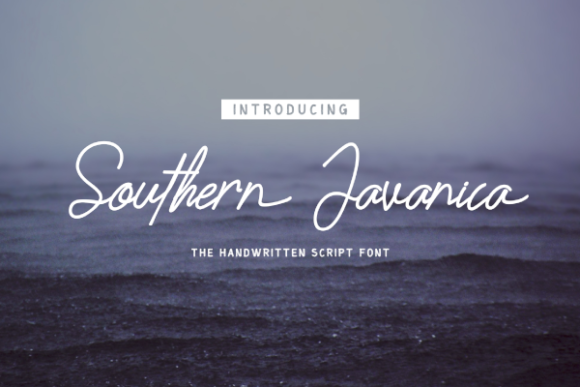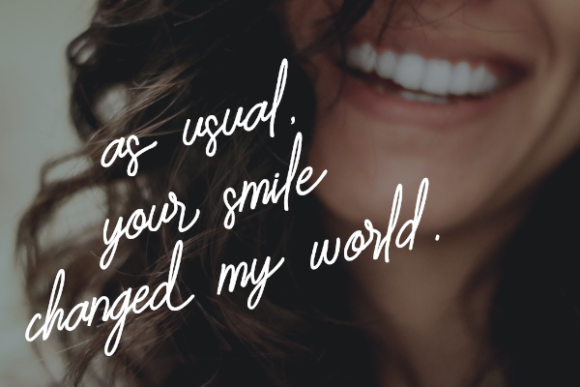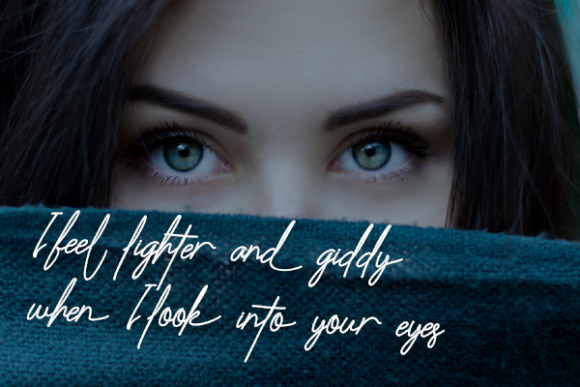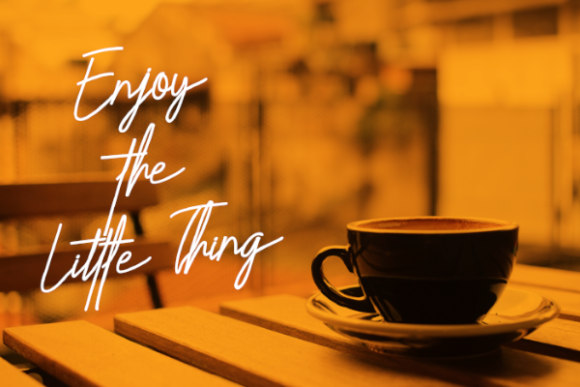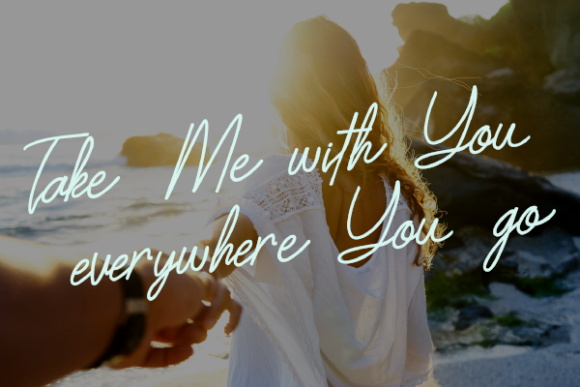
Southern Javanica Font
About Southern Javanica Font
Southern Javanica is a beautiful and light handwritten font with a contemporary twist. It will add a personal touch to any elegant design project!